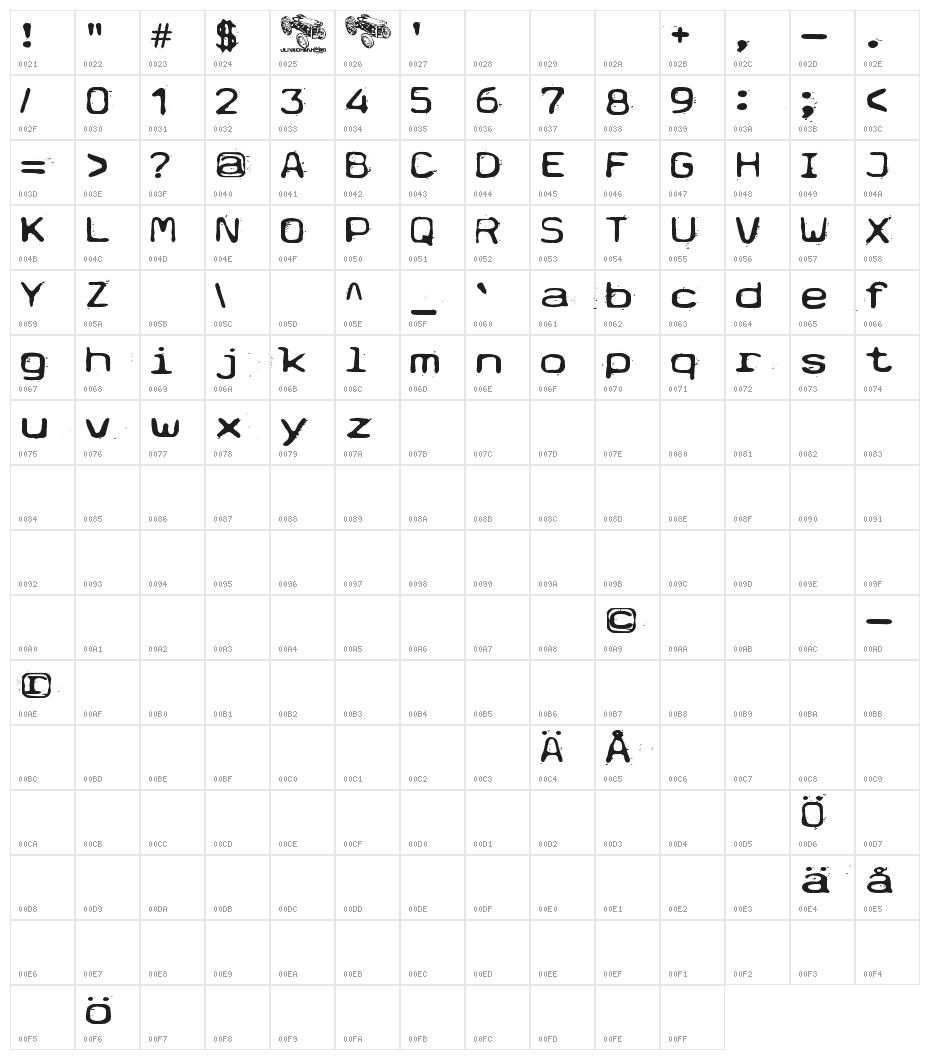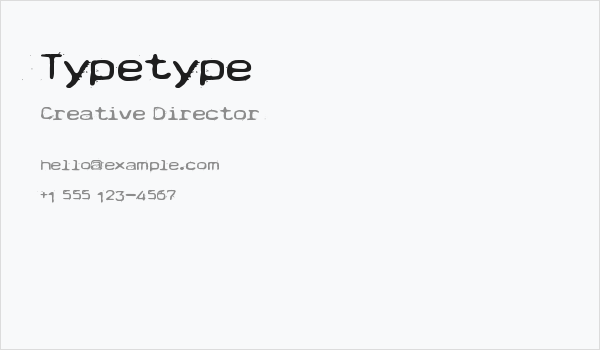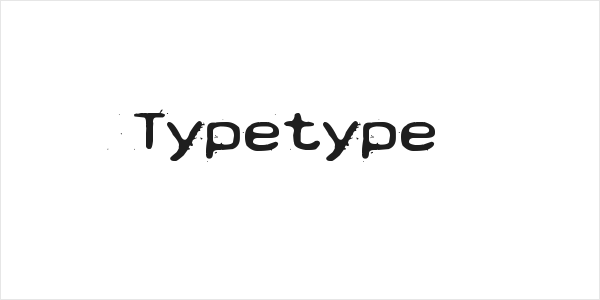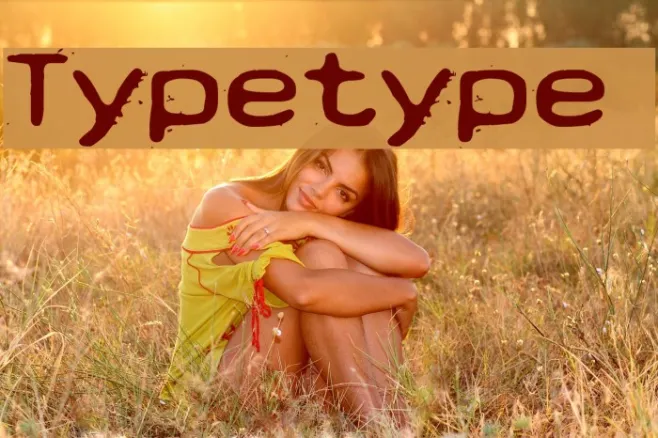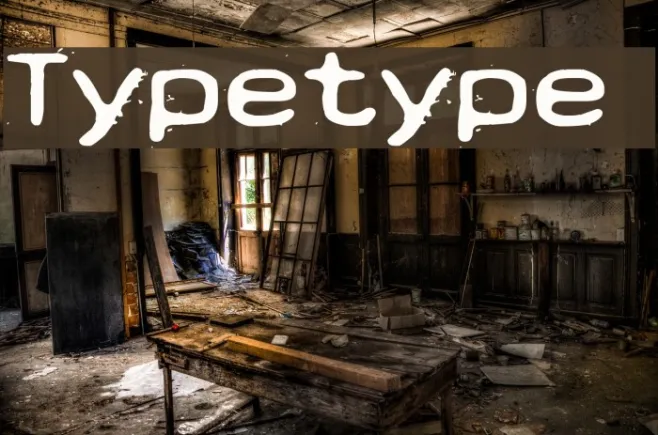
Typetype Font
Typetype Description
This font exhibits a rugged, distressed style with a hand-drawn appearance. The characters are irregular and feature a grunge texture, giving them a worn and vintage look. The uppercase and lowercase letters maintain a consistent style, with rounded edges and uneven strokes that add to the font's rustic charm. Numerals and special characters follow the same aesthetic, making the font cohesive across all elements. This style is reminiscent of old typewriter fonts but with a modern twist, suitable for designs that require a touch of nostalgia or a handcrafted feel.
TYPETYPE UPPERCASE
TYPETYPE LOWERCASE
TYPETYPE OTHER CHARS
| Proposed Projects | Ideal for vintage-themed posters, album covers, branding for artisanal products, or any project needing a rustic, handcrafted touch. |